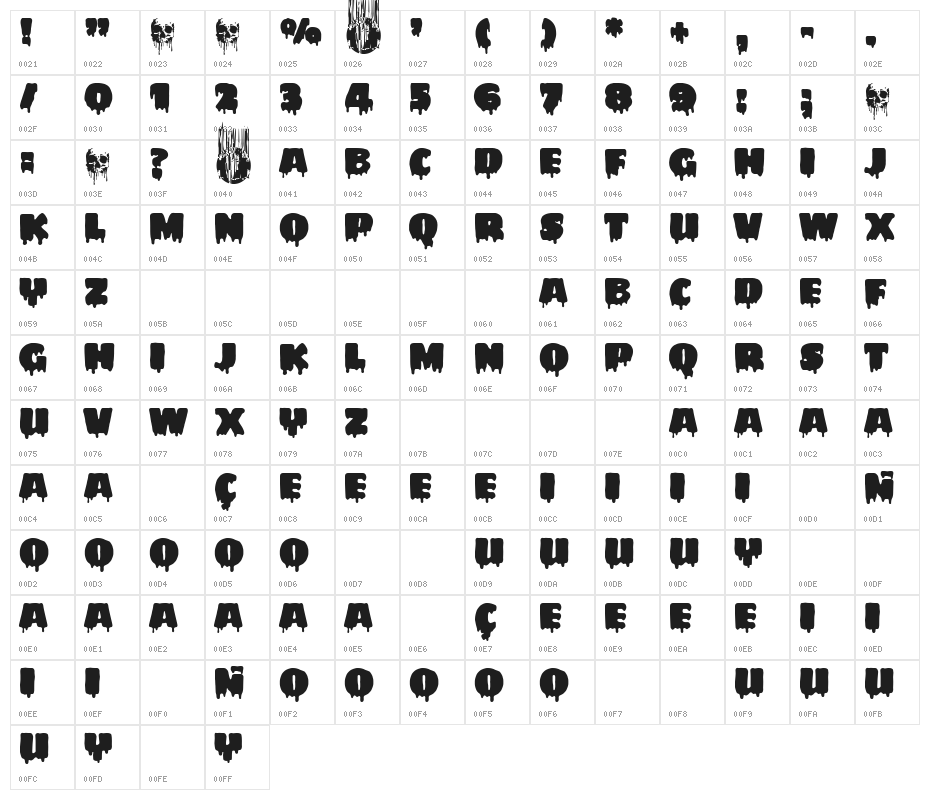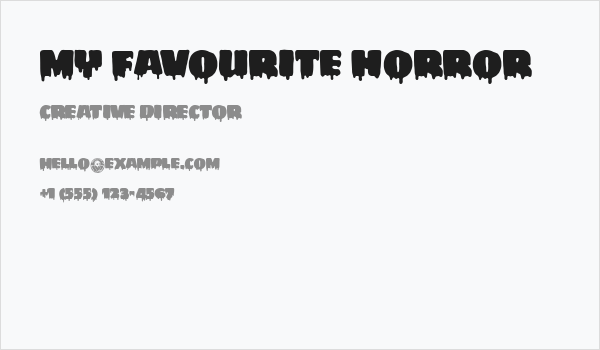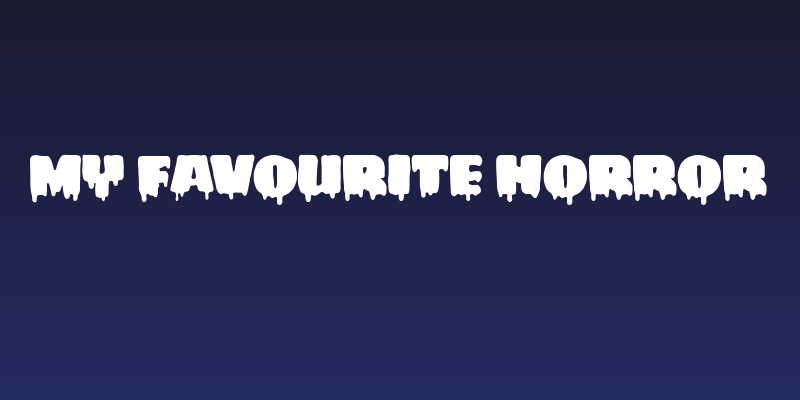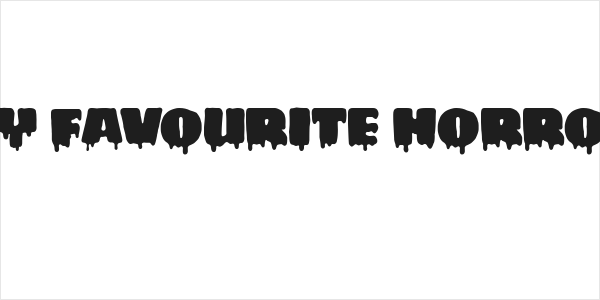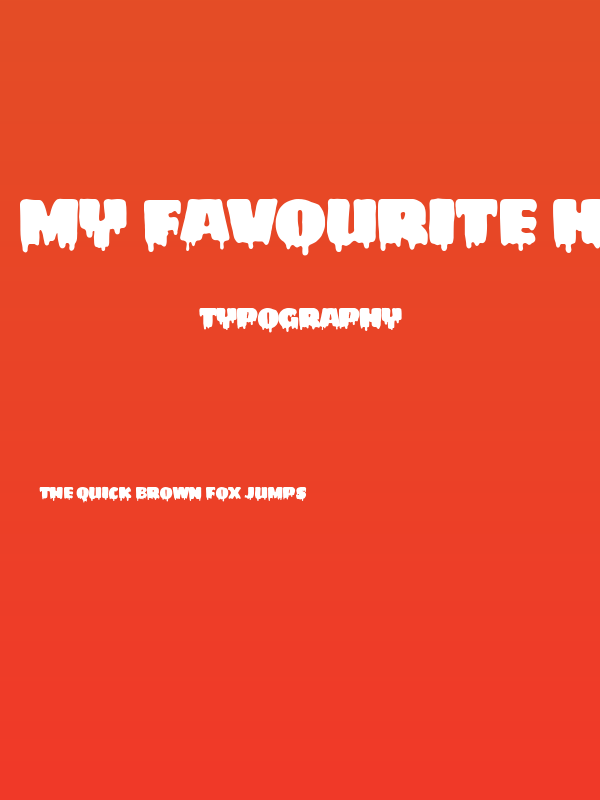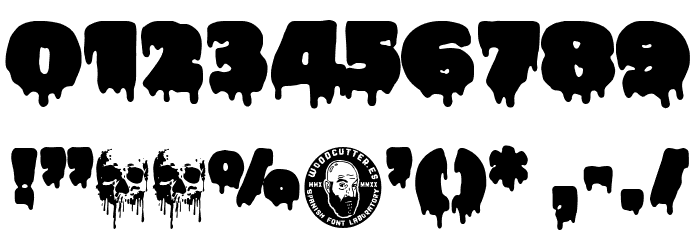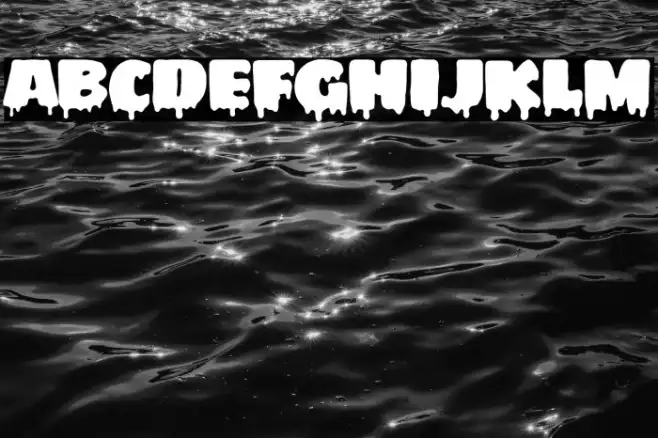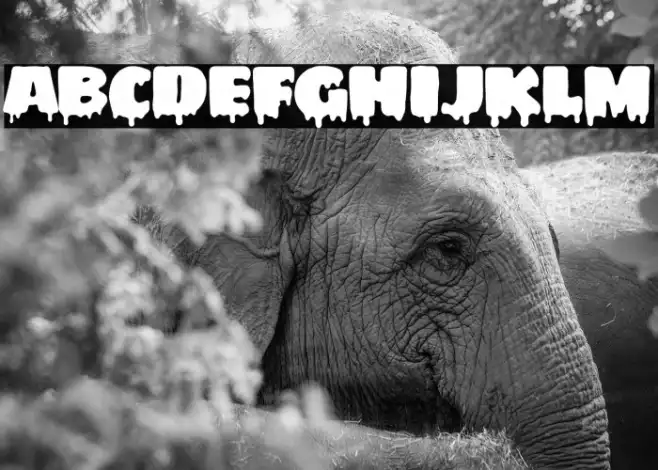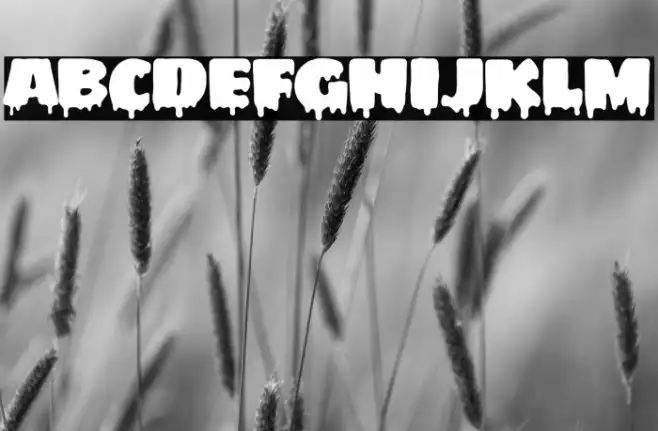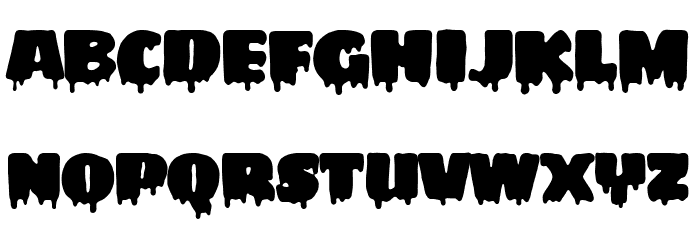
My Favourite Horror Font
This font features a bold and dripping design, reminiscent of horror and Halloween themes. Each character appears as if it's melting or oozing, creating a spooky and eerie effect. The uppercase and lowercase letters maintain this consistent style, with rounded edges and a heavy weight. The numbers and special characters follow the same dripping motif, enhancing the overall horror aesthetic. This font is perfect for creating a chilling atmosphere in any design project, making it ideal for horror movie posters, Halloween invitations, and themed event promotions.
| Proposed Projects | Ideal for horror movie posters, Halloween invitations, themed event promotions, and spooky merchandise designs. |